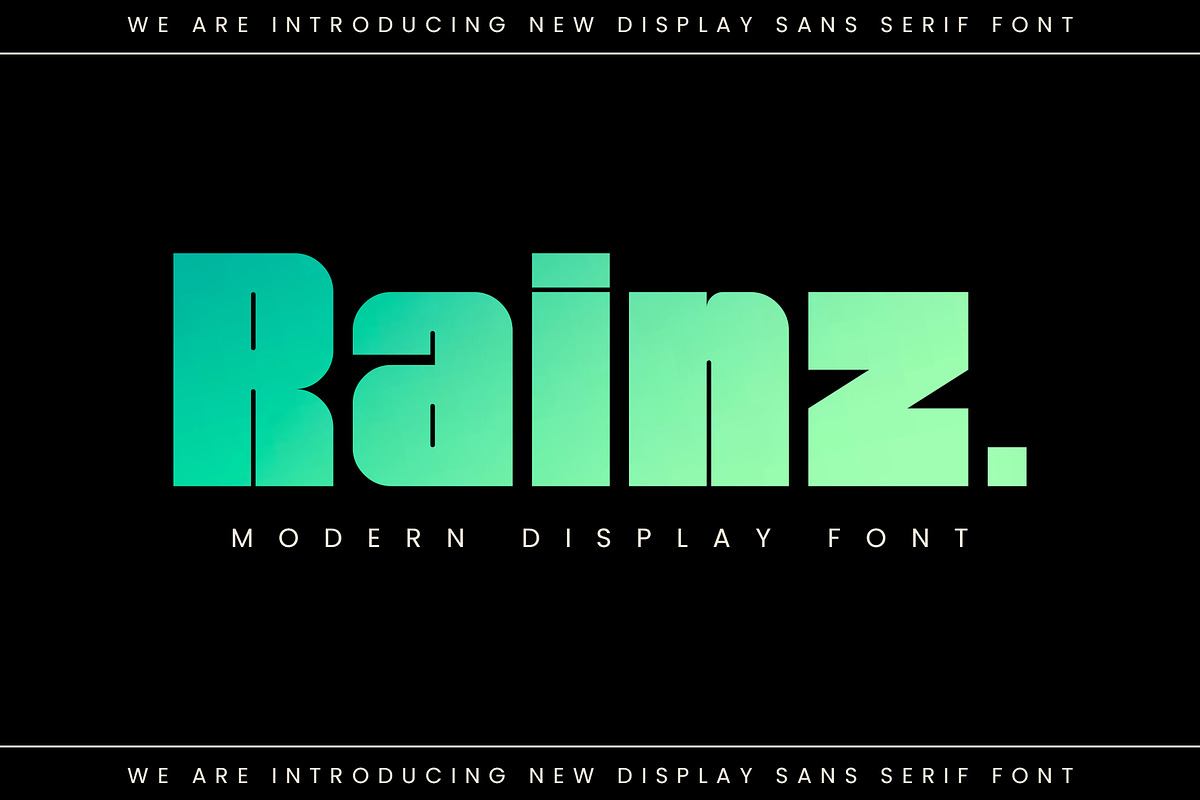
Step into sleek minimalism with Rainz Sans Serif Font Free Download. This modern sans serif typeface features clean lines, smooth curves, and a geometric structure—perfect for branding, tech presentations, UI/UX design, packaging, and editorial layouts that require clarity and contemporary style.
Rainz offers a refined yet approachable aesthetic, with balanced proportions that ensure readability across all screen sizes and print formats. It includes uppercase and lowercase letters, numerals, punctuation, and multilingual support—making it a reliable choice for testing clean, professional layouts.